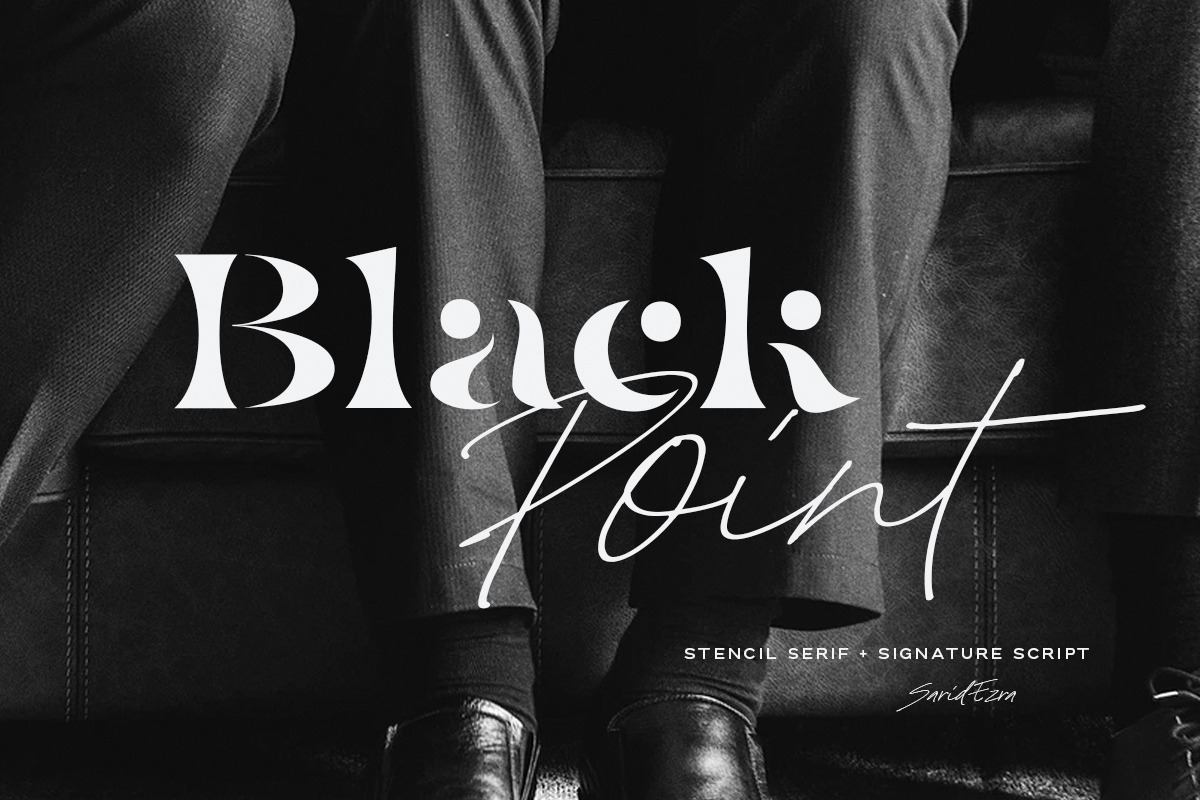
Get the best of both worlds with Black Point Modern Font Duo Free Download — a stylish and versatile font pairing that blends bold sophistication with handwritten charm. Whether you're designing a logo, crafting product packaging, or creating social media content, this modern duo delivers instant impact and balance.
Typically combining a strong sans or serif with a sleek script counterpart, Black Point allows for stunning contrast in your design — ideal for headlines + subheads, names + taglines, or titles + accents. It includes full character sets, punctuation, numerals, and multilingual support for seamless creative flexibility.